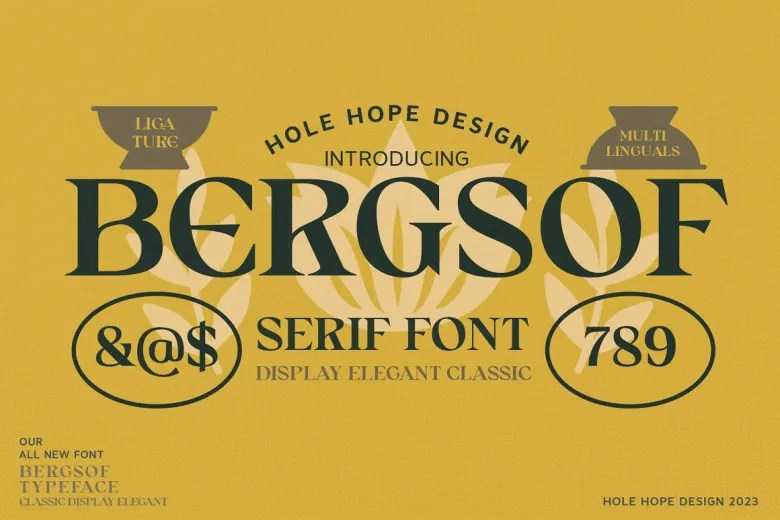
Bergsof Font
Bergsof is a striking serif font with a vintage flair, expertly crafted for headlines, branding, and packaging. Its classic beauty and sophisticated design make it ideal for various graphic design projects.
Key Features of Bergsof:
• Vintage Aesthetic: Merges classic serif elements with a retro charm.
• Sophisticated Design: Perfect for enhancing logotypes, merchandise, and branding materials.
• Versatile Use: Ideal for headlines, branding, and packaging applications.
Ideal Uses for Bergsof:
• Headlines: Create impactful headlines with a touch of vintage elegance.
• Branding: Craft memorable brand identities with its sophisticated look.
• Packaging: Add a classic touch to product packaging.
• Logotypes: Enhance logos with a blend of vintage and modern sophistication.
• Merchandise: Perfect for printed stickers and other branded items.